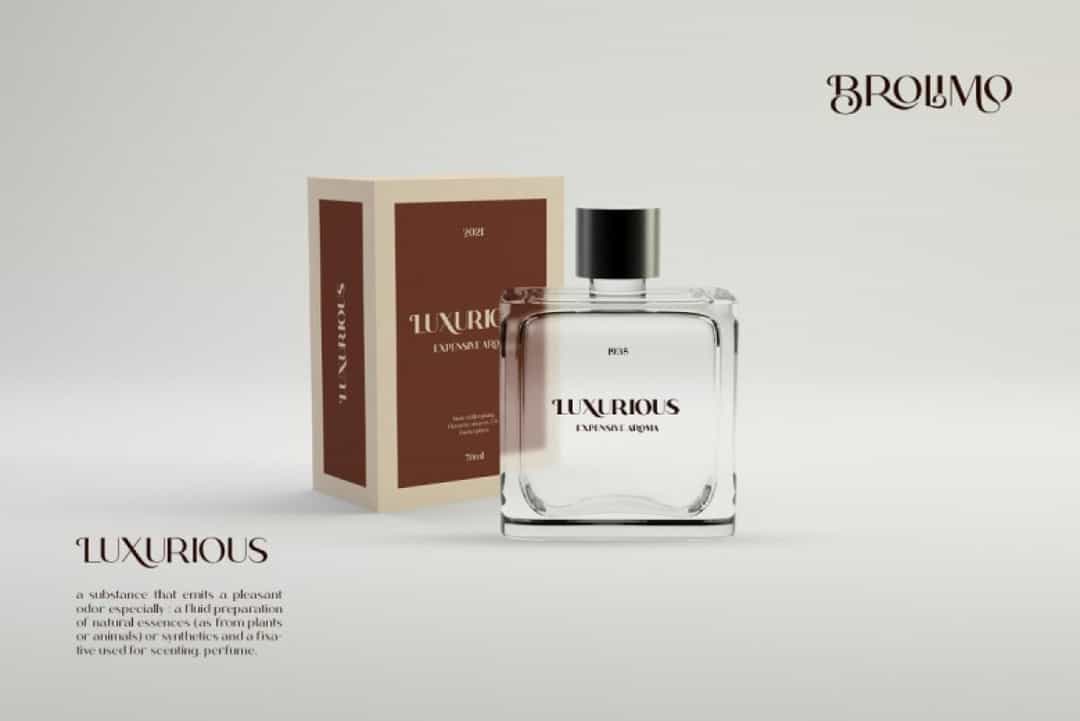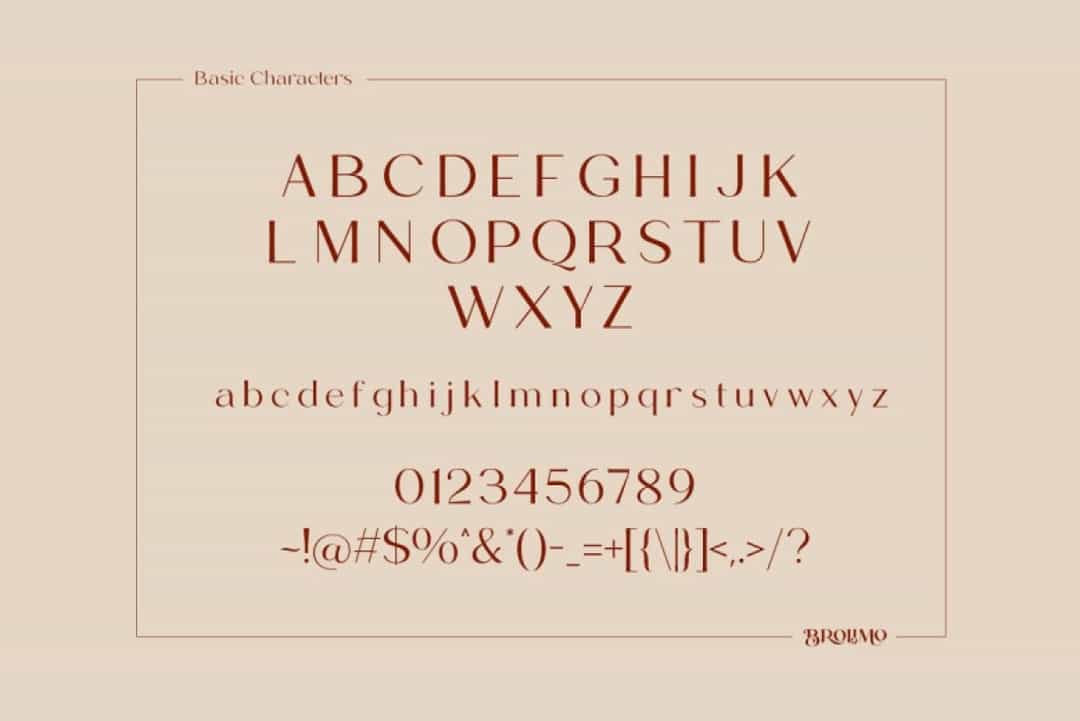
Discover Brolimo Font, part of the Serif collection—a versatile and unique font perfect for adding a personal touch to your projects. Download it for free and enjoy crafting designs with style, from invitations to social media posts. This font is available exclusively for personal use, giving you the freedom to create without limits. Unlock your creativity with Brolimo Font today!
Brolimo The Font family comprises 14 families that span Thin to Heavy styles. This sleek modern font offers an original design that will catch the attention of those searching for it, not to mention an elegant and simple design which gives it a luxurious aesthetic.